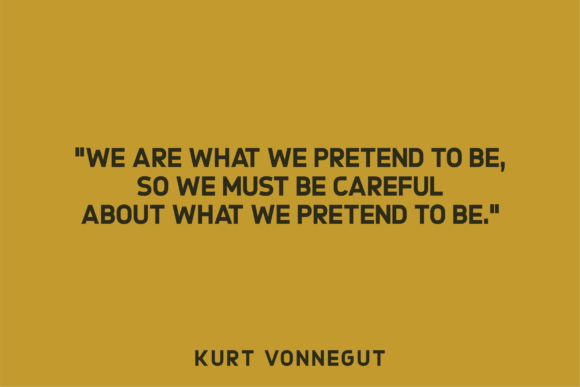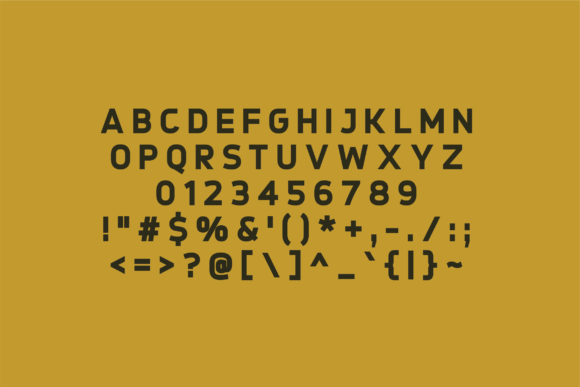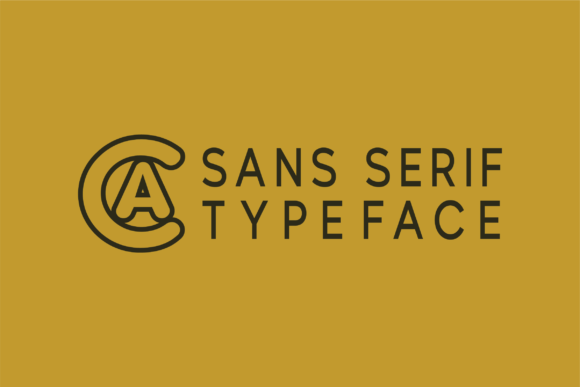
Introduction to Resilience Font
Have you ever stared at a blank page, feeling like your creative ideas are stuck in a rut? You’re not alone. As designers, we’ve all been there – desperate to find that perfect font that brings our vision to life. And that’s exactly where the Resilience Font comes in – a game-changing design resource that’s about to revolutionize your creative project.
With its sleek, modern aesthetic and versatility, the Resilience Font is the ultimate addition to any high-quality design. Whether you’re crafting a stunning logo, designing a wedding invitation, or creating a captivating advertisement, this font is sure to elevate your work to new heights. And the best part? It’s a free download, complete with a transparent background, making it the perfect design resource for any project.
Key Features of Resilience Font
- High-quality design resource for creative projects, offering a unique and professional look.
- Unique characteristics include its modern and minimalist aesthetic, making it suitable for a wide range of creative projects.
Honest Review: Resilience Font
I recently stumbled upon the Resilience Font, and I must say it’s a great addition to any design resource collection. As a designer, I appreciate fonts that are both visually appealing and functional.
- ✨ High quality: The font is well-designed, with clean lines and a modern feel.
- ⚠️ Limited font weights: While the font is great, it would be nice to have more weight options to choose from.
- ⚠️ Not ideal for small text: The font can be a bit difficult to read in small sizes, so it’s best to use it in headings or larger text.
Overall, I’m impressed with the Resilience Font. It’s a solid design resource that’s perfect for any creative project. With a little creativity, you can use it to add a unique touch to your designs.
Tips for Getting the Most Out of Resilience Font
Use the Resilience Font in combination with other design elements to create a unique and eye-catching look.
Experiment with different font sizes and colors to find the perfect balance for your design.
The Resilience Font is perfect for:
Headings and titles in blog posts and articles.
Business cards and marketing materials.
Graphic design projects and posters.